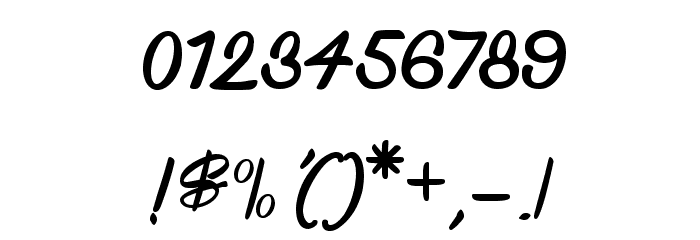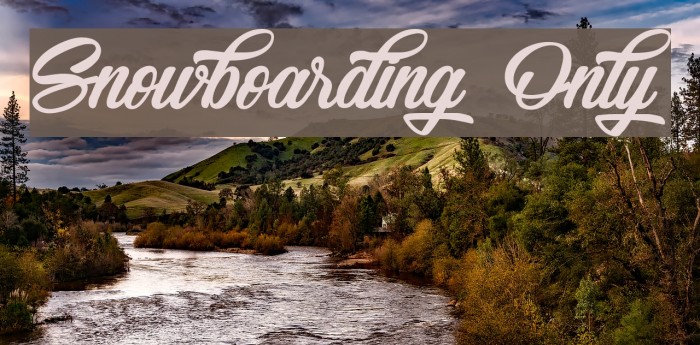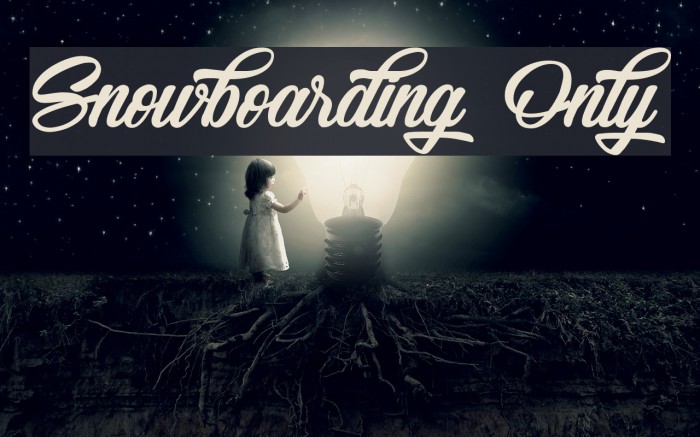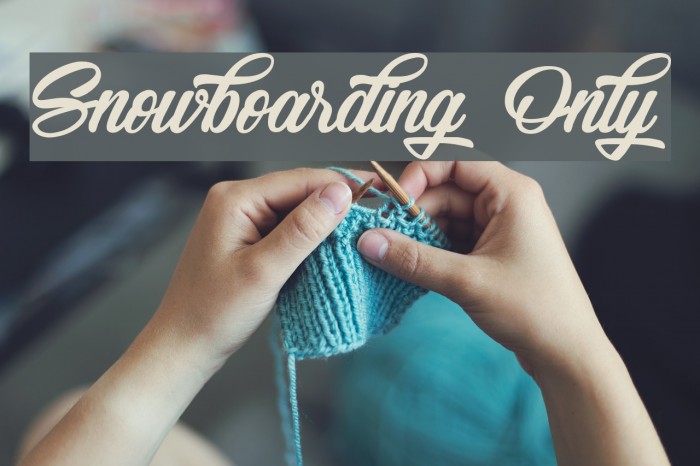
Snowboarding Only Font
This font features a dynamic and flowing script style, characterized by its elegant and cursive letterforms. The uppercase letters exhibit a bold and confident presence with sweeping curves and flourishes, while the lowercase letters maintain a harmonious and fluid connection. The numbers and special characters are designed with the same attention to detail, ensuring a cohesive look across all elements. The font's overall appearance is both stylish and expressive, making it suitable for projects that require a touch of sophistication and flair.
A dynamic and flowing script font with elegant cursive letterforms.
- Proposed Projects: Ideal for wedding invitations, branding, logos, and elegant packaging designs.
- Use Case: Logos, Invitations, Branding